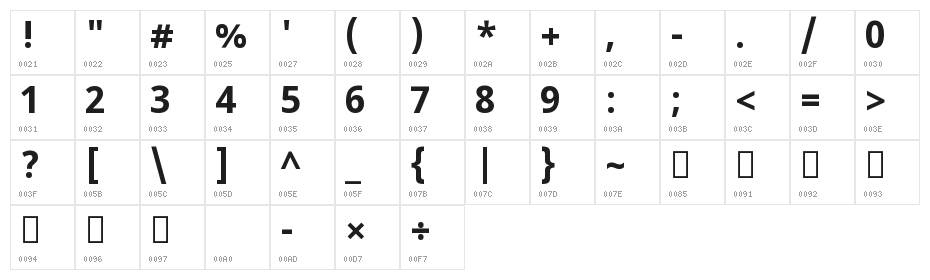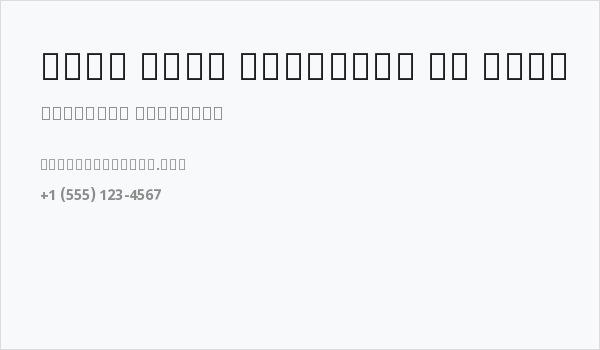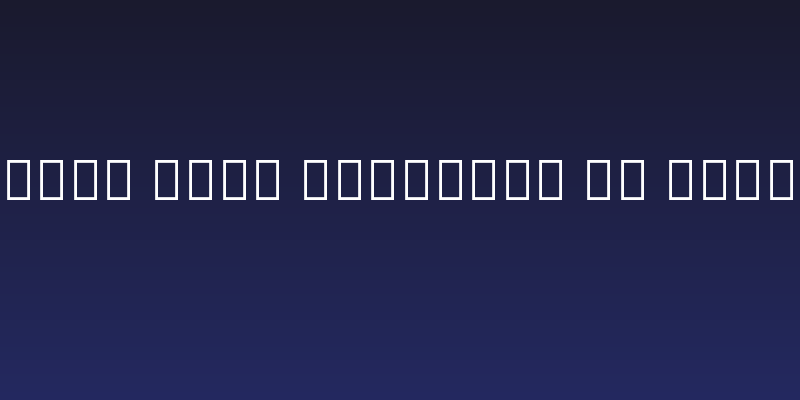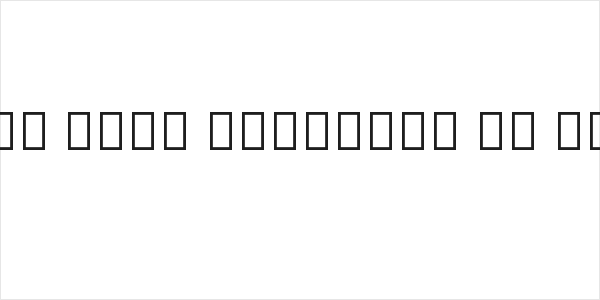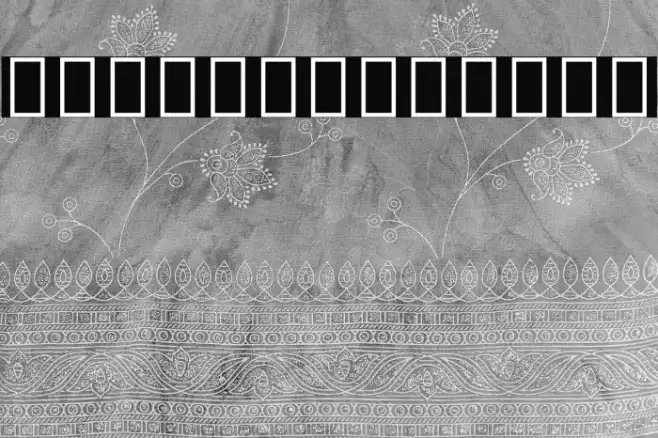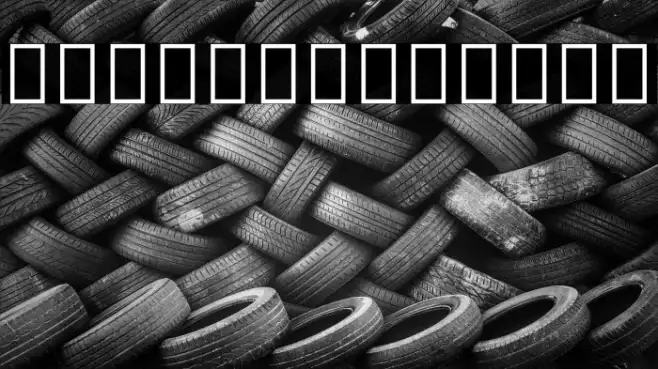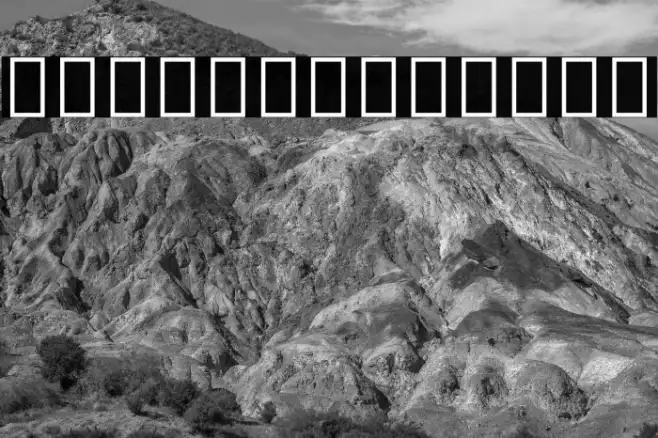
Noto Sans Gurmukhi UI Bold Font
Noto Sans Gurmukhi UI Bold Description
This font features a clean and modern sans-serif style, characterized by its bold weight and uniform stroke width. The numerals are clear and easily legible, making them suitable for a variety of applications. The special characters are well-defined, maintaining the font's overall clarity and simplicity. The design is straightforward, with a focus on functionality and readability, making it ideal for user interfaces and digital displays.
| Use Case | Headlines, User Interfaces, Digital Displays |
| Proposed Projects | Ideal for user interfaces, digital displays, signage, and any project requiring clear, bold text. |